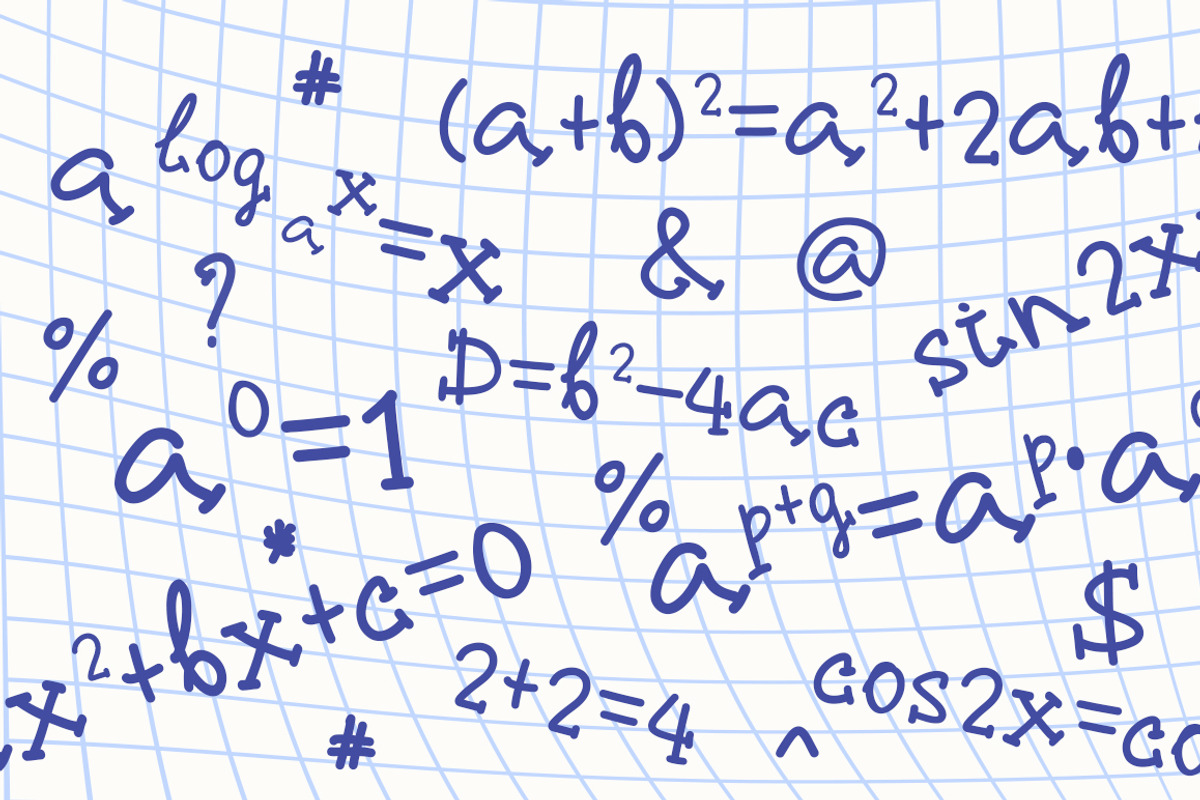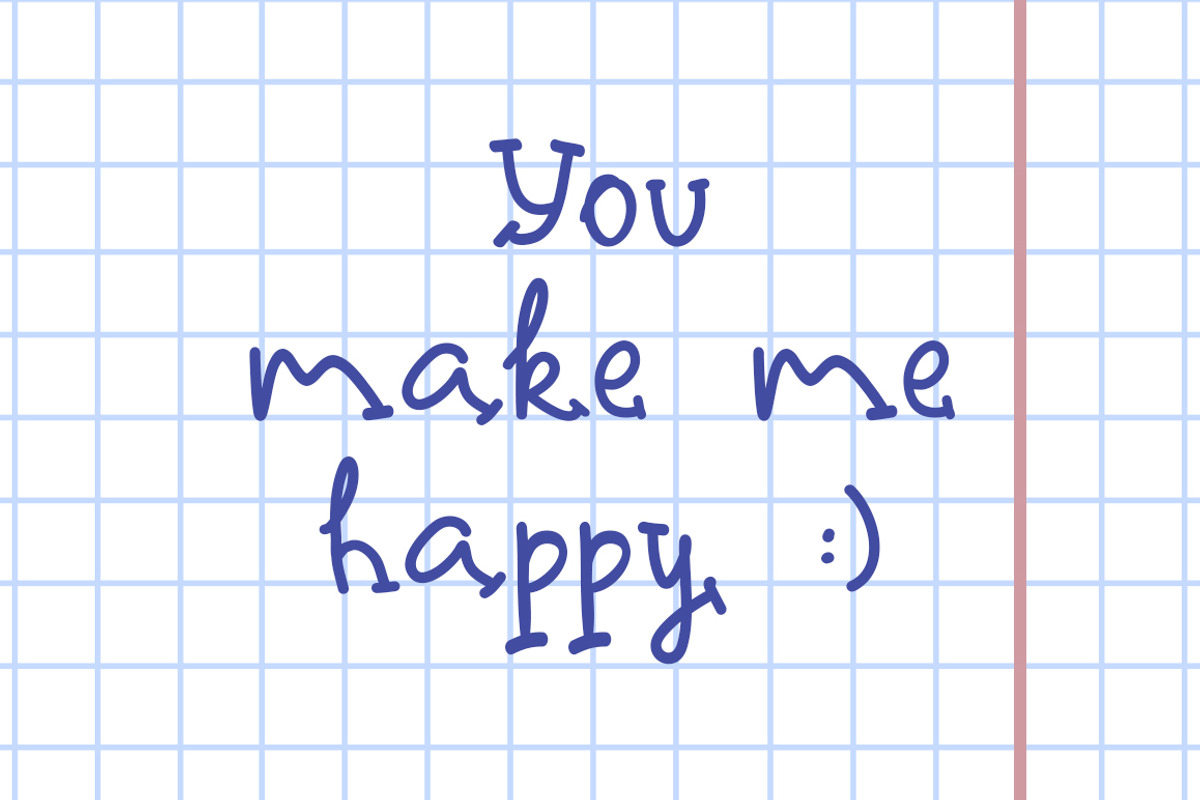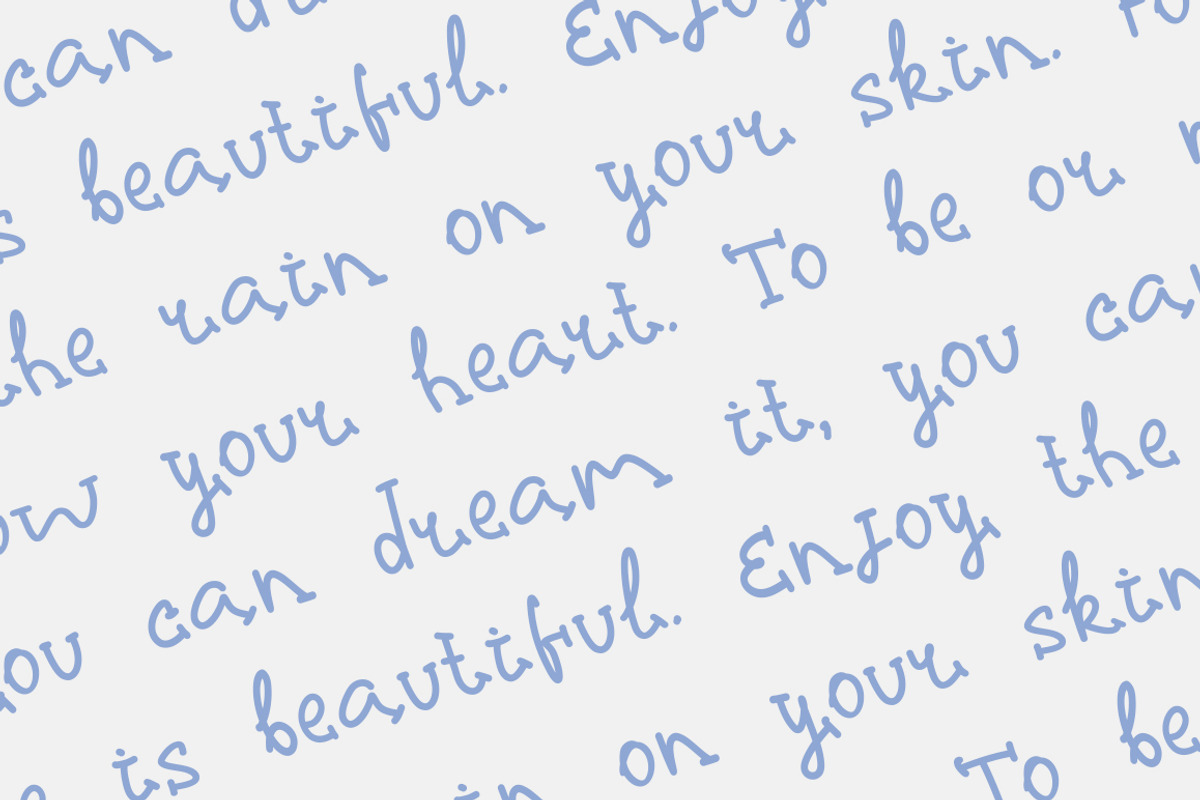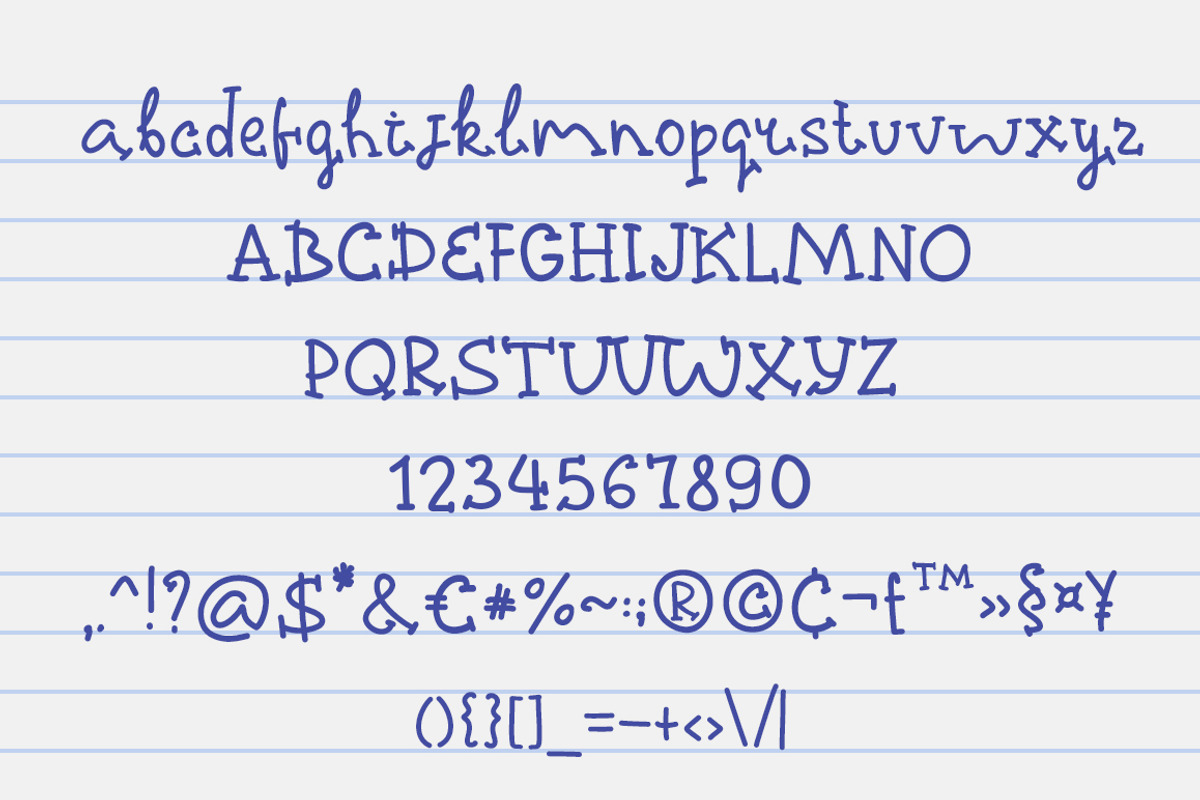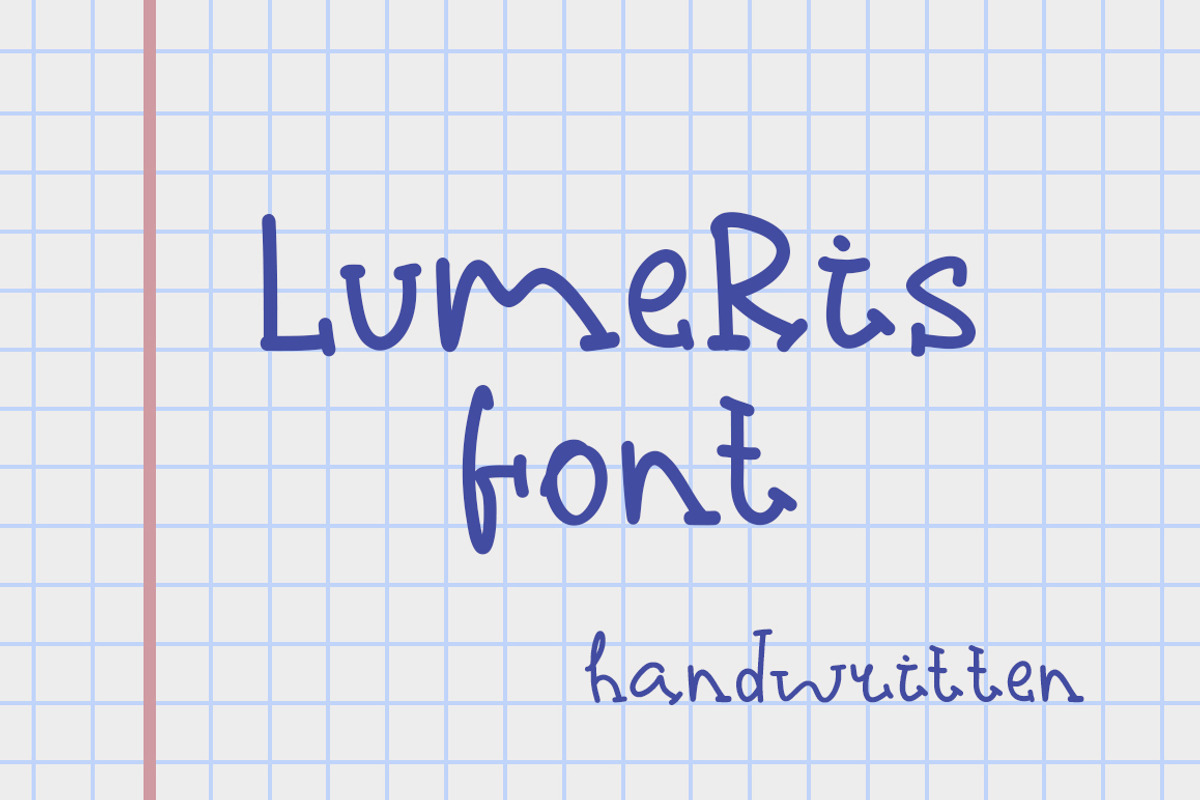
Lumeris handwritten font
Lumeris Font combines playful handwritten lightness with clear structure, creating the effect of friendly yet neat notes in a notebook.| It is easy to read, but still retains a creative and informal character, creating a warm atmosphere in the design.| Great for children's projects, creative cards, packaging, posters and educational materials.